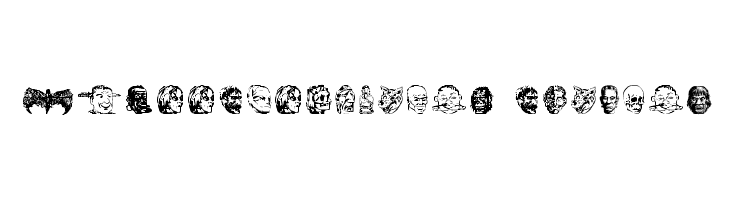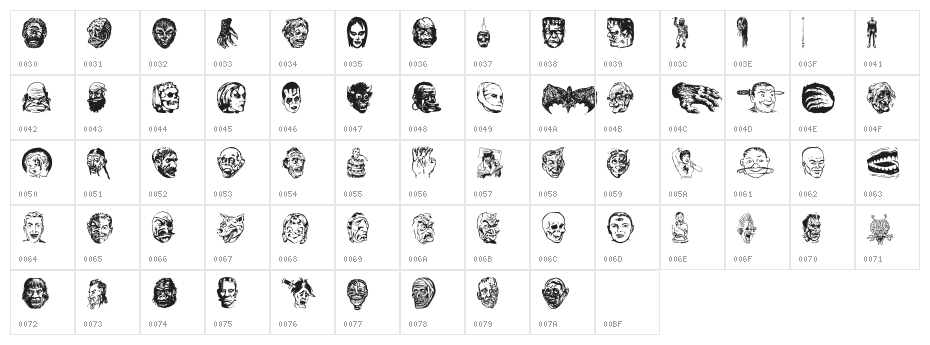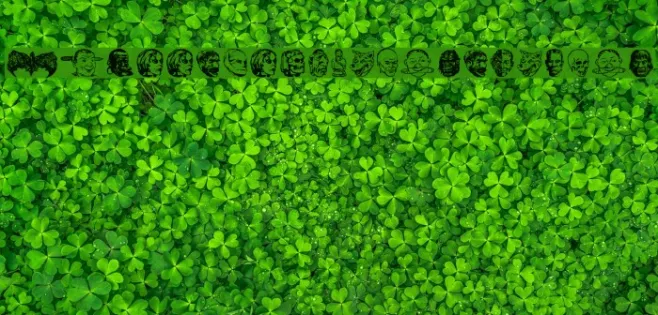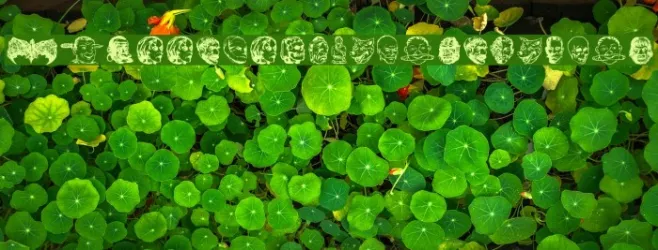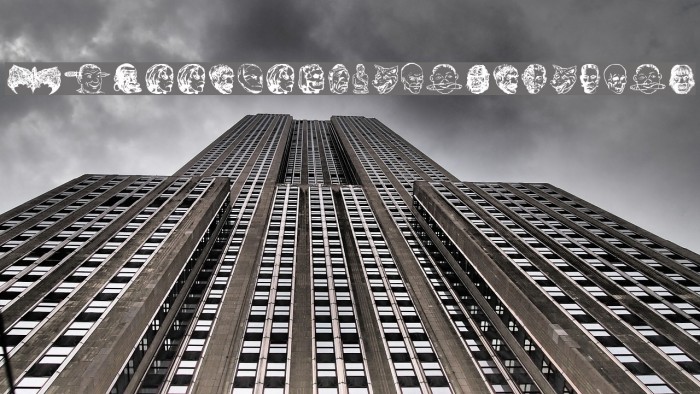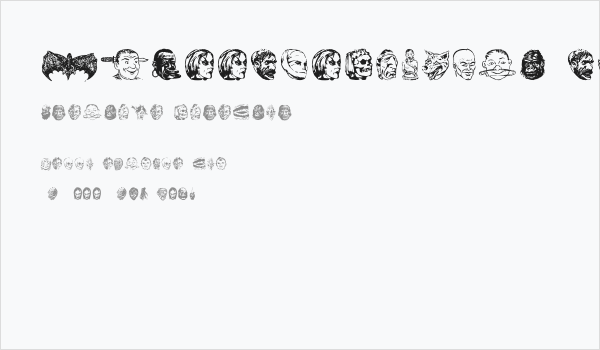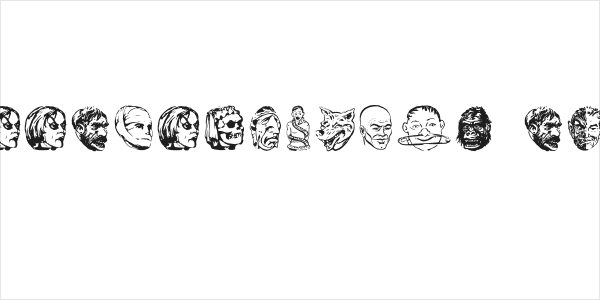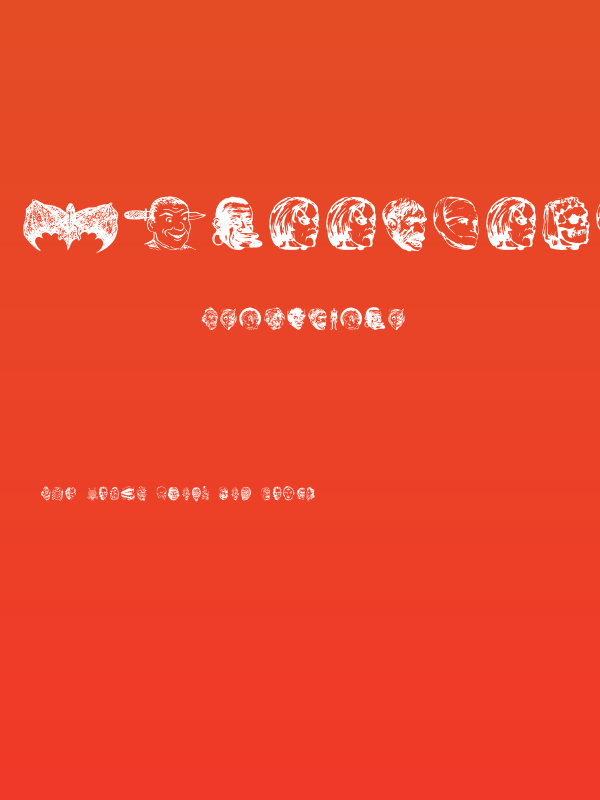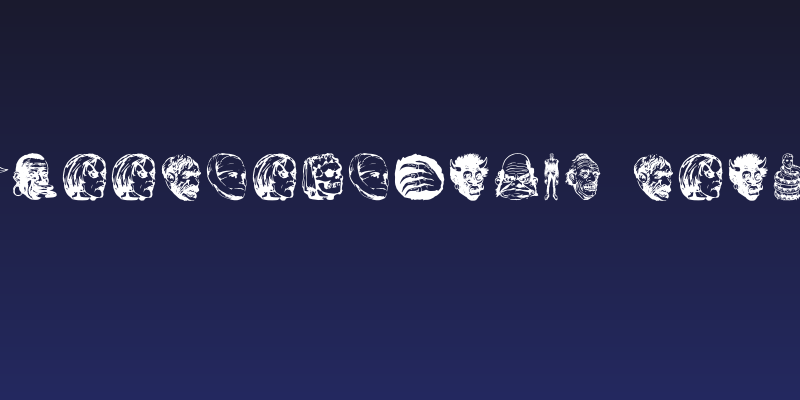
JMHEERIEDingbat-Regular Font
JMHEERIEDingbat-Regular Description
A highly detailed dingbat set featuring a variety of horror-themed illustrations, including grotesque faces, monsters, skulls, and other macabre imagery. Each character is a unique, hand-drawn black-and-white graphic with strong contrast and intricate linework.
Overall StyleDecorative, Horror, Vintage Comic
Use CaseDecorative elements, Themed graphics, Posters, Merchandise
Proposed ProjectsHalloween party invitations, horror movie posters, themed event flyers, comic books, decorative borders, and merchandise design.